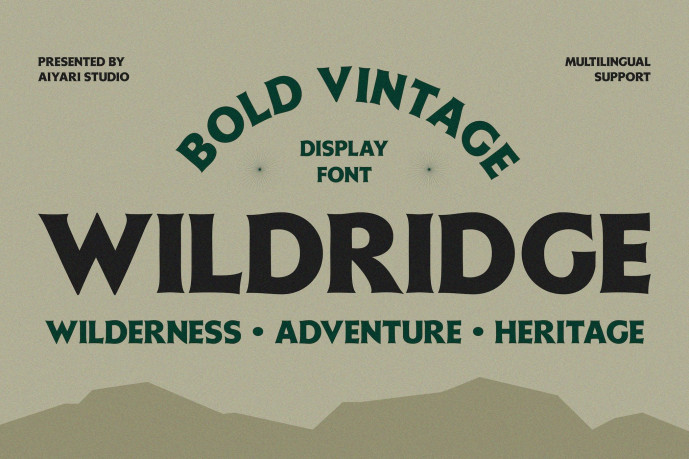
Wildridge Font
Designer: Aiyari
Wildridge Font is a bold, vintage display typeface inspired by the great outdoors. With its flared serifs, sharp curves, and robust stance, this typeface captures the spirit of the wilderness, adventure, and of heritage. Wildridge is designed to enhance any project that appeals to a sense of nature, strength, and timeless charm.